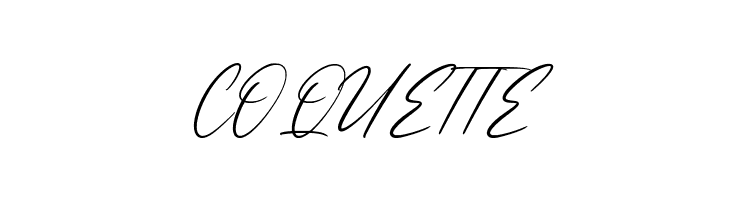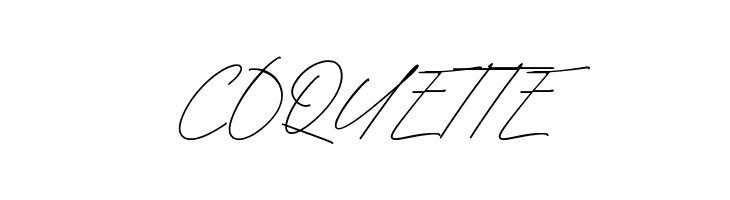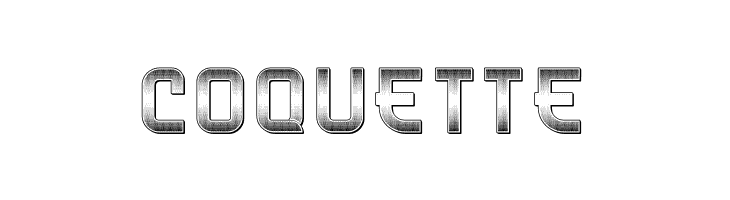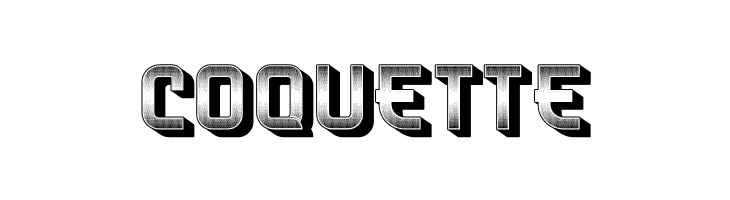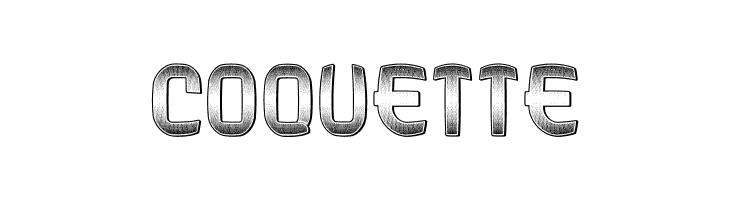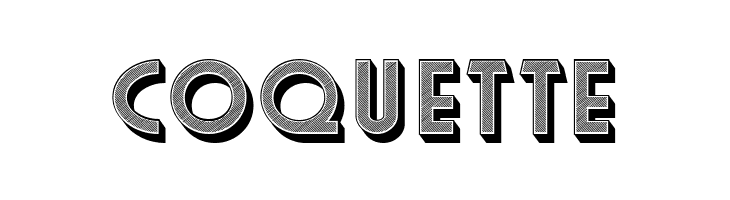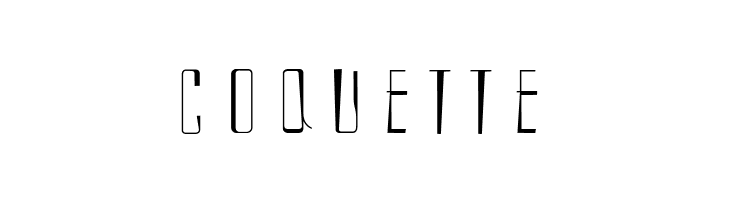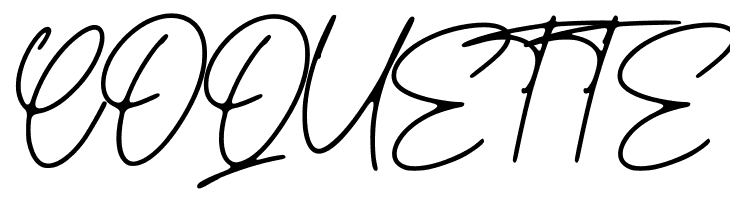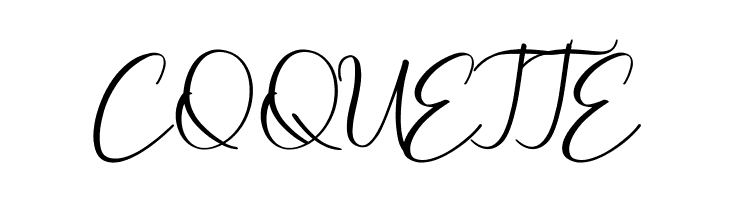
A graceful and elegant handwritten font with fluid, connected strokes.
An elegant and fluid script font with cursive strokes and a refined style.
A bold, industrial font with a 3D effect and geometric structure.
A bold, comic-inspired font with textured shading and playful energy.
A bold, 3D font with an industrial, retro-futuristic style.
An elegant, cursive handwritten font with smooth, flowing lines.
A bold, three-dimensional font with geometric and structured uppercase characters.
A graceful and elegant script font with flowing, cursive lines.
A bold, decorative font with a three-dimensional effect and vintage-modern aesthetics.
A modern, geometric font with sharp angles and smooth curves.